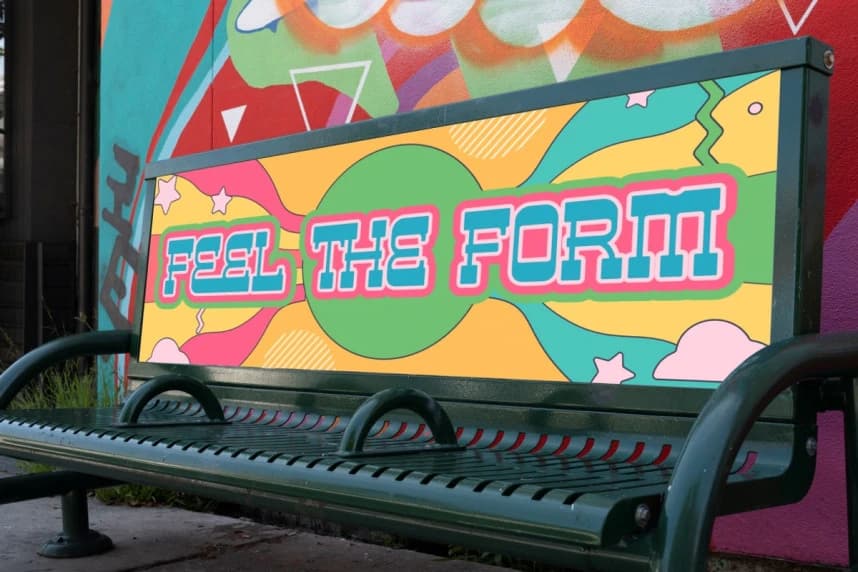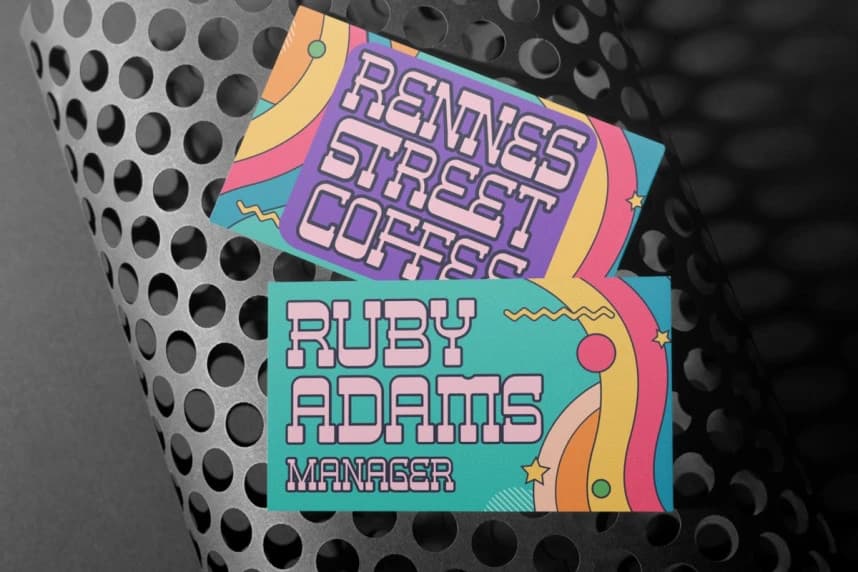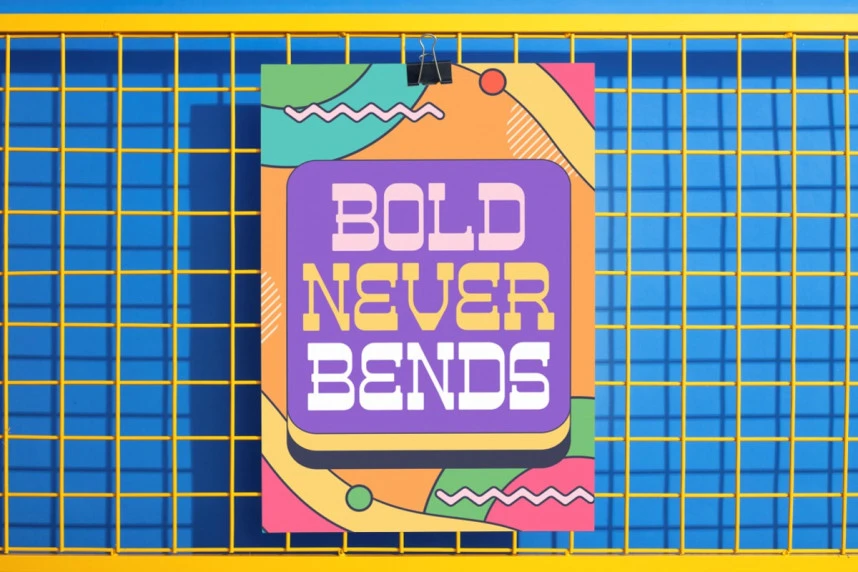
First Atmo Font
First Atmo Font, a playful slab display font that commands attention. Each letterform combines the strong structure of slab serifs with quirky, rounded counters and geometric terminals that evoke a nostalgic, cultural energy.
First Atmo